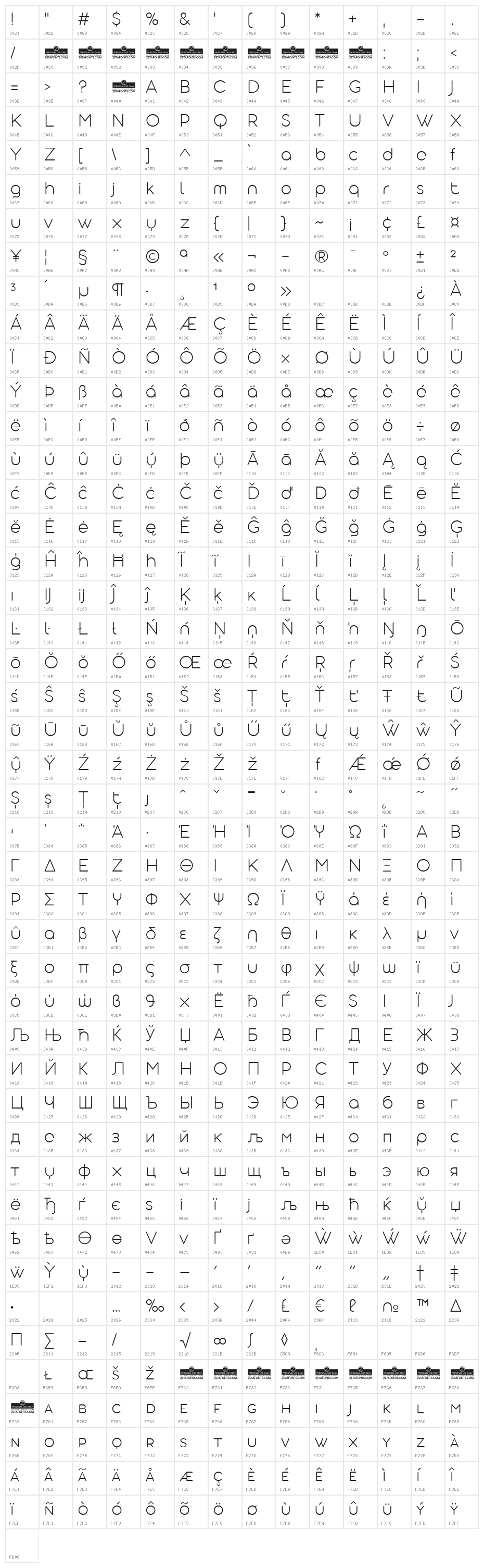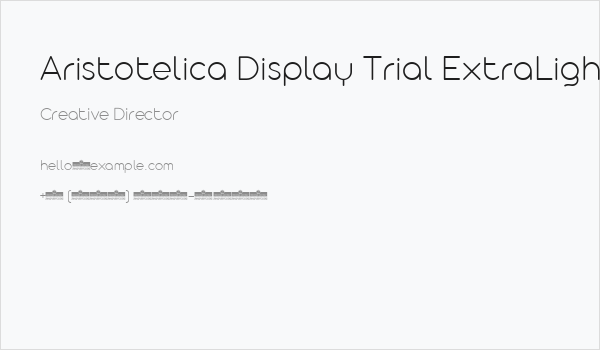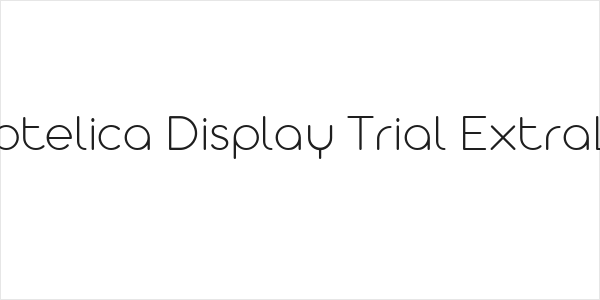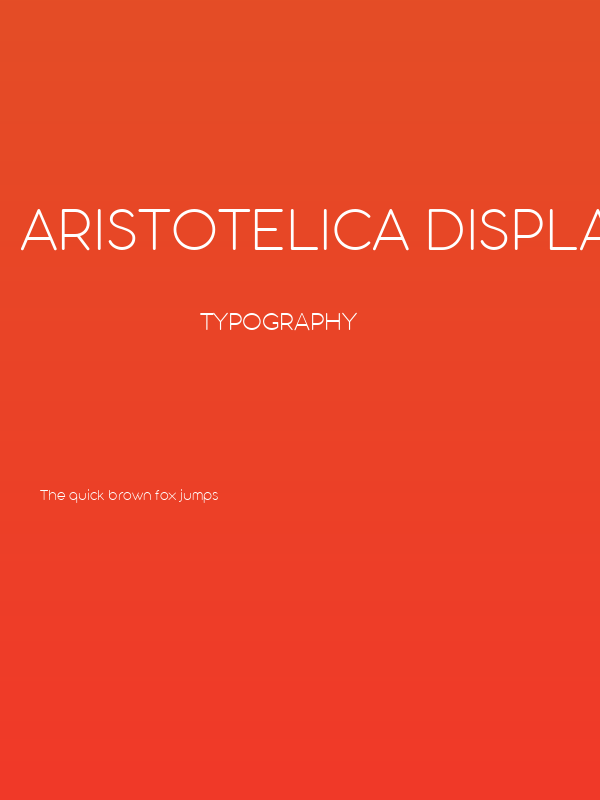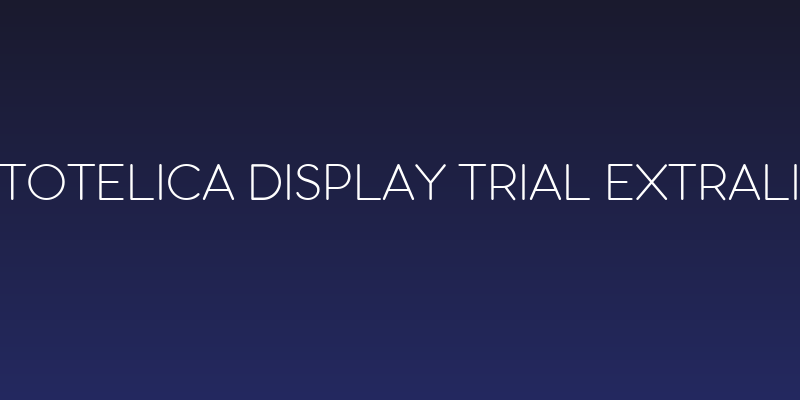
Aristotelica Display Trial ExtraLight Font
Aristotelica Display Trial ExtraLight Description
This font features a clean and modern design with a geometric structure. The characters are crafted with a uniform stroke width, giving it a sleek and minimalist appearance. The uppercase and lowercase letters maintain a consistent style, with rounded edges that add a touch of softness to the overall look. The numerals and special characters are designed to complement the alphabet, ensuring a cohesive visual identity. This font's simplicity and elegance make it highly versatile for various design applications.
| Proposed Projects | Ideal for branding, editorial design, web design, and advertising projects that require a contemporary and professional look. |